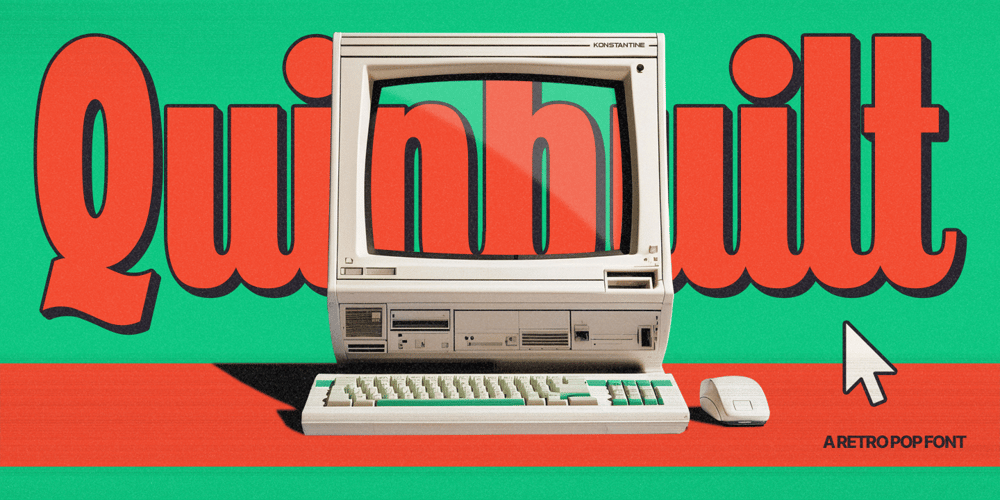
Quinbuilt Font Family was designed by Abdilah and published by Konstantine Studio. Quinbuilt contains 1 styles and family package options. Are you ready to take your design projects to the next level? Say hello to Quinbuilt, the epitome of vintage charm blended seamlessly with modern design prowess. Elevate your creations with a touch of nostalgia that captures hearts and leaves a lasting impression.Hurry, dive into the world of Quinbuilt now, and embark on a journey that merges nostalgia with innovation. Your masterpiece awaits – let Quinbuilt be your guiding star!